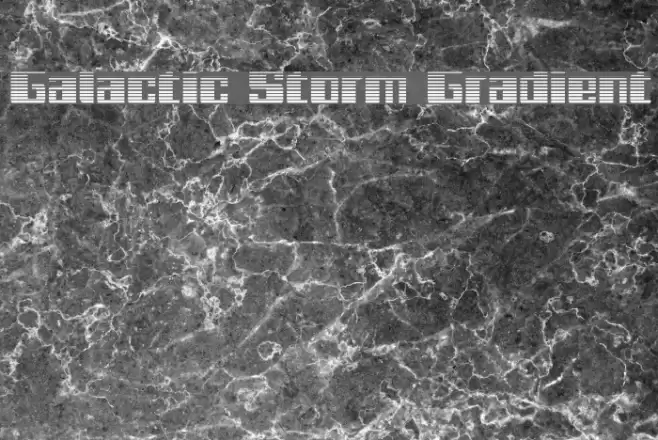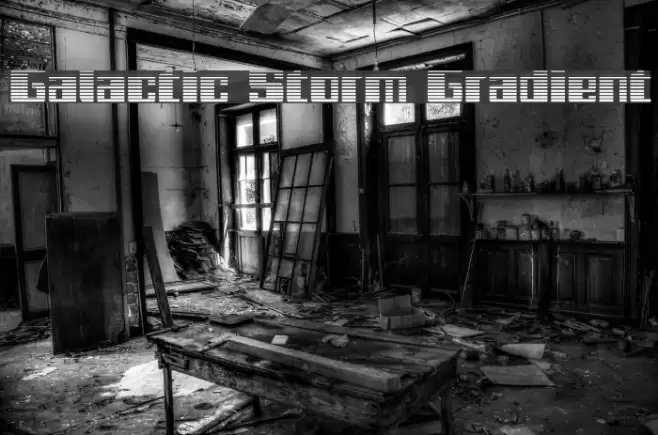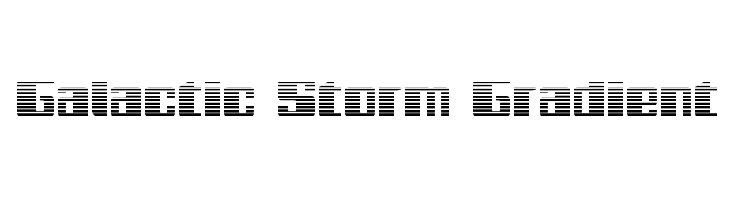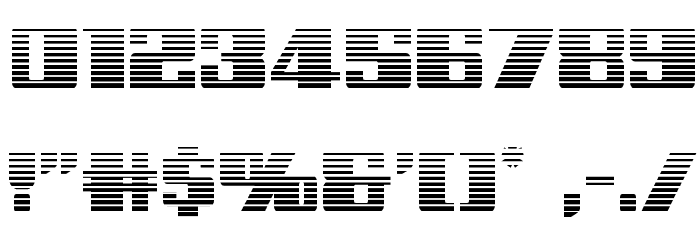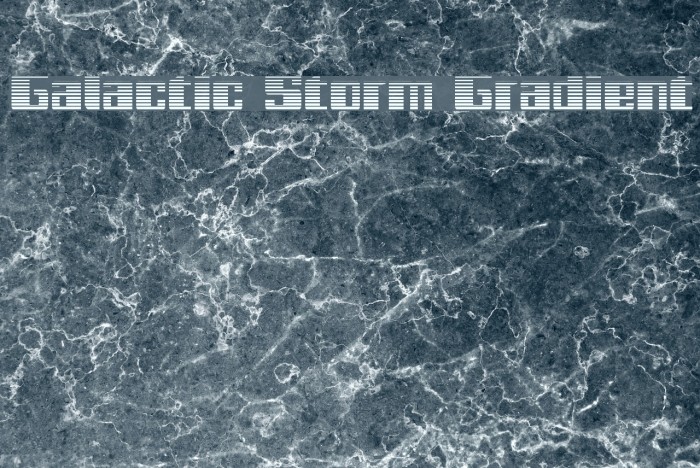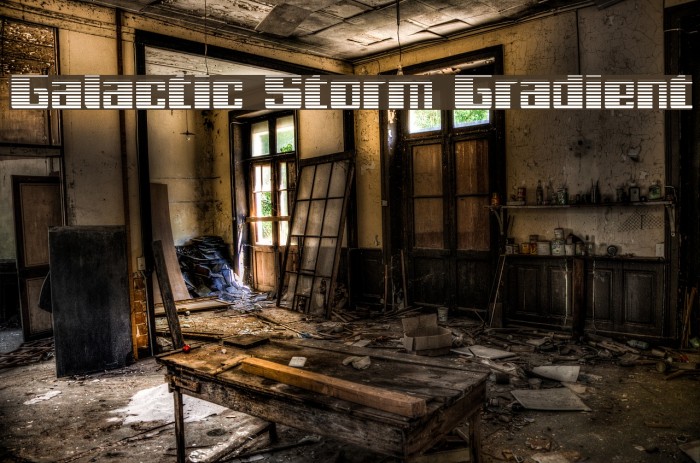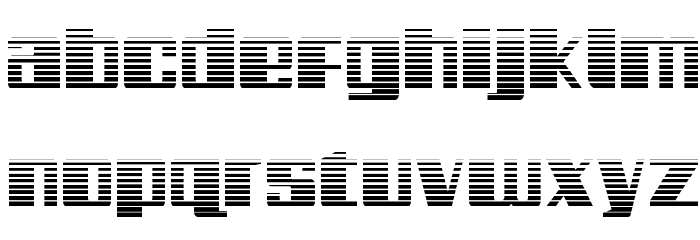
Galactic Storm Gradient Font
Galactic Storm Gradient Description
This font features a futuristic and dynamic design with a unique striped pattern running horizontally across each character. The bold, geometric shapes are reminiscent of digital or sci-fi aesthetics, making it stand out with a strong visual impact. The uppercase and lowercase letters maintain a consistent style, with the stripes creating a sense of movement and energy. Numbers and special characters are designed to match the overall theme, ensuring a cohesive look. The font's distinct appearance makes it suitable for projects that require a modern and edgy feel.
A futuristic, striped font with a bold, digital aesthetic from Uncategorized fonts.
- Proposed Projects: Ideal for sci-fi themed designs, video game titles, technology branding, and futuristic posters.